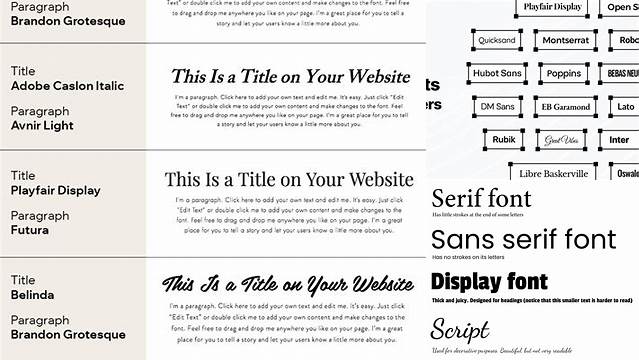
Best Website Fonts: Boost Readability & Design
Choosing the right fonts for your website is super important, guys! It's not just about making things look pretty; it's about creating a great user experience, reinforcing your brand, and making sure your message gets across clearly. A good font can make your website more readable, engaging, and professional. So, let's dive into some of the best fonts you can use to make your website shine. We'll cover a range of styles, from classic serifs to modern sans-serifs, and talk about where they work best. Let's get started!
Why Font Choice Matters
Font choice is crucial for several reasons. First and foremost, it affects readability. A font that’s hard to read will frustrate your visitors, causing them to leave your site quickly. Readability isn’t just about the shape of the letters; it’s also about the spacing between them, the line height, and the overall visual texture of the text. Secondly, your font helps establish your brand’s personality. A playful, quirky font can signal that your brand is fun and approachable, while a classic, elegant font can convey sophistication and trustworthiness. Branding is all about consistency, so choosing fonts that align with your brand’s values is essential. Thirdly, fonts impact the overall design and aesthetics of your website. The right font can tie together all the visual elements, creating a cohesive and professional look. Aesthetics matter because they grab attention and make a lasting impression. So, before you settle on a font, think about what message you want to send and how you want your website to feel. Think of fonts as the voice of your website – you want it to be clear, engaging, and reflective of your brand’s identity.
Best Serif Fonts
When it comes to serif fonts, we're talking about those classic fonts with the little strokes or “feet” at the end of each letter. Serif fonts often convey a sense of tradition, authority, and elegance. They're great for headlines and body text, depending on the specific font and how you use it. A popular choice is Times New Roman, a widely recognized serif font that has been a staple in print for decades. While it might seem a bit overused, it’s incredibly readable and works well in formal contexts. Another excellent option is Georgia, designed specifically for screen readability. It has a larger x-height, making it easier to read on various devices. For a more modern take, consider Playfair Display. It's elegant and sophisticated, perfect for headings and titles, adding a touch of class to your website. If you're looking for something a bit warmer, try Merriweather. It was designed for on-screen reading and has a pleasant, inviting feel. Lastly, consider Didot, a high-contrast serif that exudes luxury and style, ideal for fashion or high-end brands. Remember, the key to using serif fonts effectively is to pair them with a complementary sans-serif font for a balanced and visually appealing look. So, go ahead and experiment with these options to find the perfect serif font that embodies your brand's personality and enhances your website's readability and aesthetic appeal.
Top Sans-Serif Fonts
Sans-serif fonts, on the other hand, are those clean, modern fonts without the little feet. They often convey a sense of simplicity, clarity, and modernity. These fonts are fantastic for body text and headlines alike, especially on digital screens where readability is key. One of the most popular sans-serif fonts is Arial. It's a classic, clean font that works well in almost any context. Another great choice is Helvetica, known for its neutrality and versatility. It’s widely used in corporate branding and web design because it’s easy to read and doesn’t distract from the content. If you're looking for something a bit more contemporary, try Open Sans. It’s designed with open forms and a neutral yet friendly appearance, making it highly readable on screens of all sizes. Roboto is another excellent option, created by Google for Android. It’s modern, geometric, and highly legible, making it a great choice for both headlines and body text. For a bolder statement, consider Montserrat. It’s a geometric sans-serif that’s perfect for headings and titles, adding a touch of sophistication to your website. When using sans-serif fonts, think about pairing them with a serif font for a balanced and visually appealing design. The combination of a clean sans-serif for body text and a more decorative serif for headings can create a harmonious and engaging user experience. So, dive in and explore these top sans-serif fonts to discover the perfect fit for your website's aesthetic and readability needs.
Font Pairing Tips
Font pairing is like creating the perfect harmony in your website's design. It involves choosing two or more fonts that complement each other, enhancing readability and visual appeal. The key is to create contrast while maintaining harmony. One popular approach is to pair a serif font with a sans-serif font. For example, you might use a classic serif like Georgia for your headings and a clean sans-serif like Arial for your body text. This creates a visual distinction that guides the reader's eye and makes the content more engaging. Another tip is to consider the mood you want to convey. If you're aiming for a modern and minimalist look, you might pair two different sans-serif fonts with varying weights and styles. For a more traditional and elegant feel, you could combine a classic serif with a script or decorative font for headings. It’s also important to pay attention to font sizes and line heights. Make sure your fonts are legible on all devices and that the line height is appropriate for the amount of text on the page. Tools like Google Fonts can be incredibly helpful for finding font pairings. They often suggest popular combinations that have been proven to work well together. Experiment with different pairings until you find the perfect combination that reflects your brand's personality and enhances your website's overall design. Remember, the goal is to create a cohesive and visually appealing experience for your visitors, making it easy and enjoyable for them to read and engage with your content. So, take the time to explore different font pairings and discover the magic they can bring to your website.
Choosing the best fonts for your website is a blend of art and science. It’s about finding fonts that not only look good but also enhance readability and support your brand’s identity. Experiment with different serif and sans-serif fonts, explore font pairings, and don’t be afraid to try something new. Remember to prioritize readability and ensure that your fonts are optimized for web use. With the right fonts, you can transform your website into a visually stunning and engaging platform that captivates your audience and leaves a lasting impression. Happy font hunting, guys! I hope this article helped you, and good luck choosing the best fonts for your website!